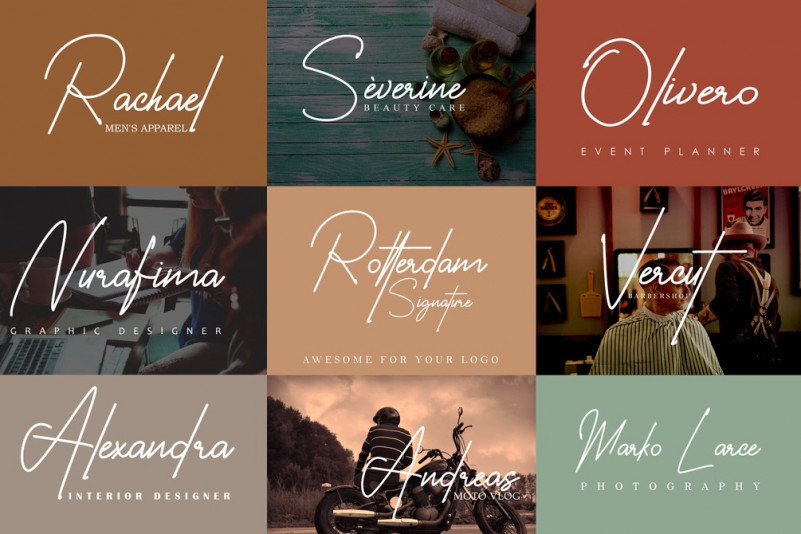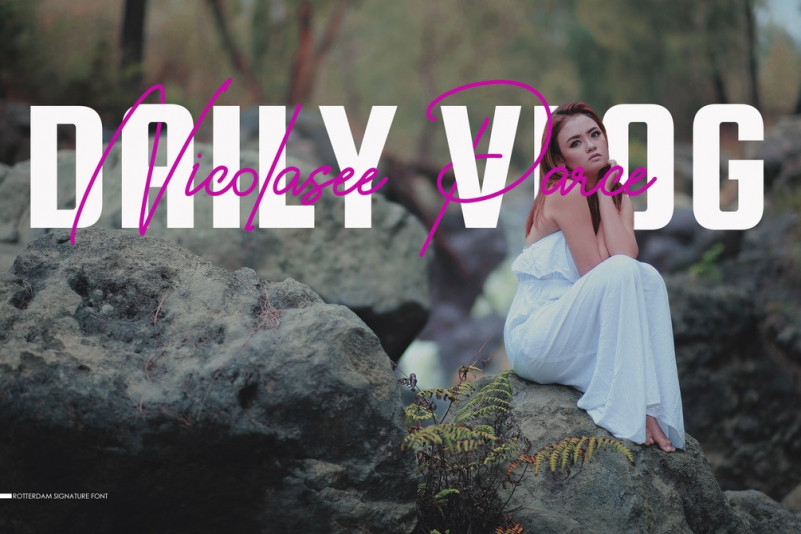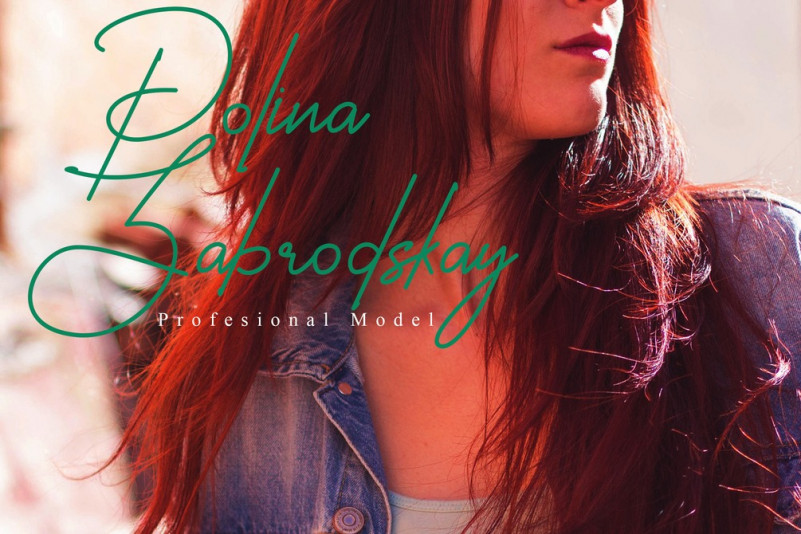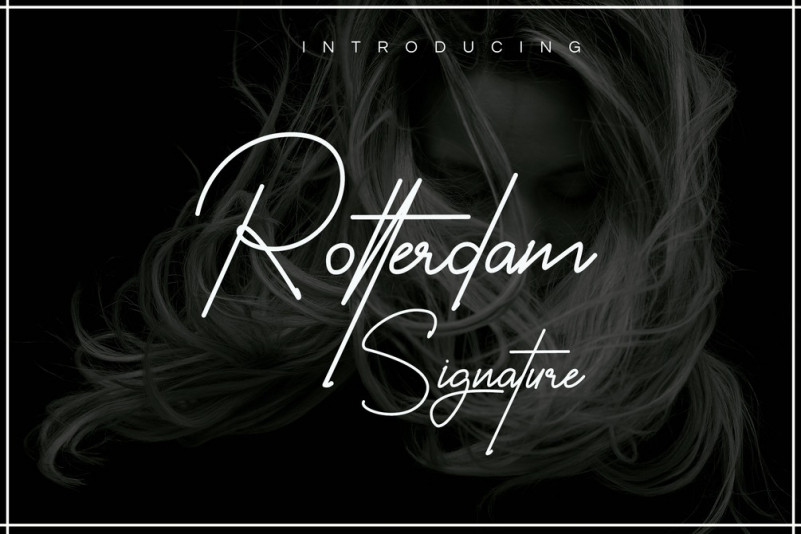
Rotterdam Handwritten Font
A work that is purely a result of handwriting, has a natural characteristic. It’s a high quality, smooth, simple script font which is easy to read and ideal for anything romantic and loving. Presenting Rotterdam Font. It’s a chic signature font with a bouncy look. It is easy to read – making it perfect for branding and digital designs. Use this font for logos, social media, websites, blogs, instagram, business cards, branding, and more!